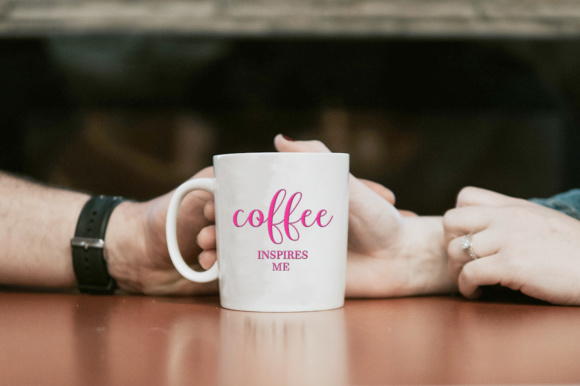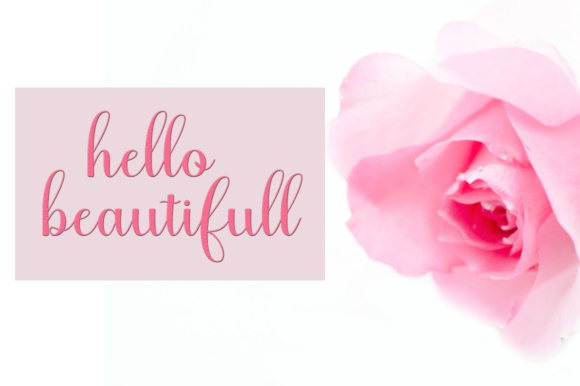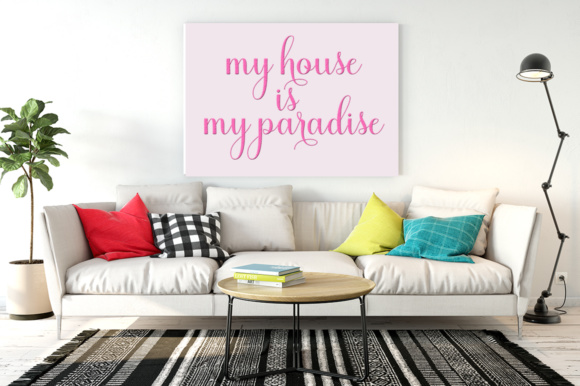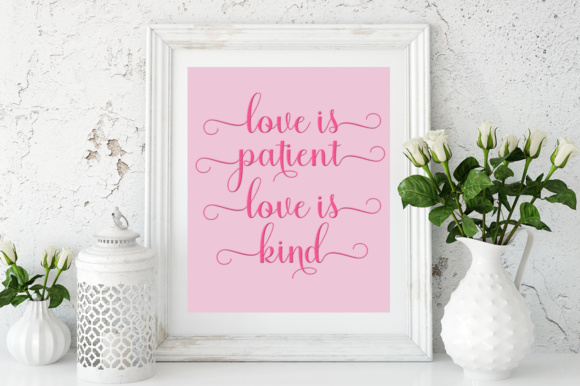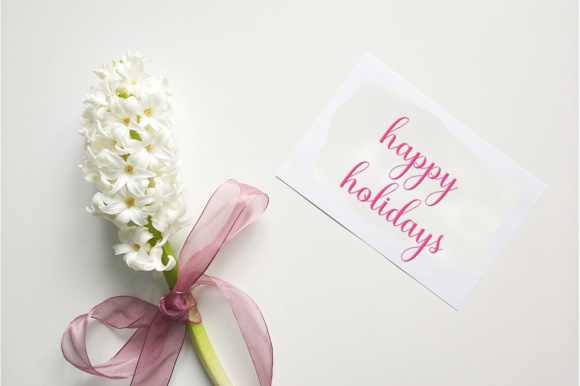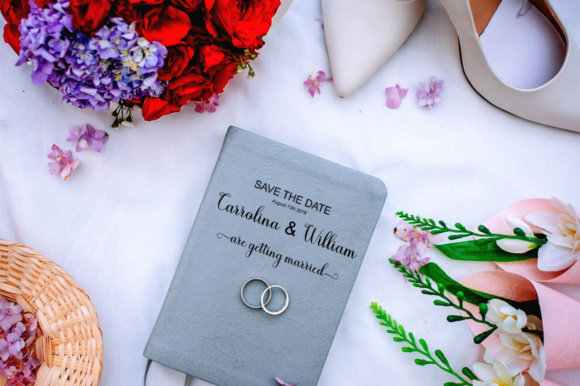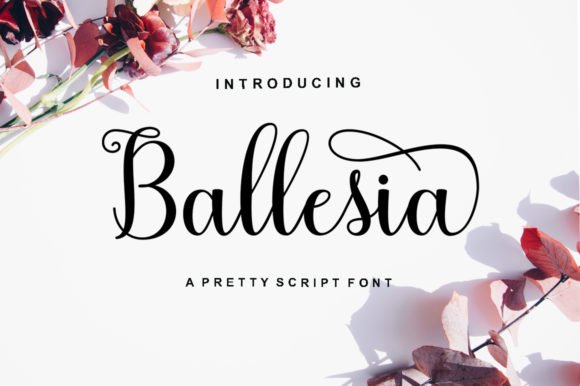
Have you ever been working on a design project and suddenly, the perfect font pops into your head? Maybe it’s the perfect script font that makes your logo or branding stand out from the crowd. For many designers, that moment is when the magic happens, and the design starts to come alive. That’s exactly what we’re going to talk about in this article: the beautiful and versatile Ballesia Script Font.
This lovely script font is perfect for designers who want to add a touch of elegance and sophistication to their projects. With its casual, dynamic feel and dancing baseline, Ballesia Script Font is easy to use and can be applied to a wide range of designs, from branding and logos to greeting cards and wedding stationery.
Whether you’re a seasoned designer or just starting out, Ballesia Script Font is a valuable addition to your toolkit. Its versatility and ease of use make it an ideal choice for designers who want to create beautiful and effective designs with minimal effort.
Ballesia Script Font Key Features
- Font Family: Ballesia Script
- Unique Characteristics: Handwritten, cursive script font with elegant and sophisticated feel; ideal for creative, artistic, and design-related projects
- Font Style: Script, cursive, handwritten
Ballesia Script Font Review
Overall, I have mixed feelings about Ballesia Script Font. On one hand, there are some things that work well ✨.
- Unique and elegant look: Ballesia Script Font has a distinctive, hand-crafted feel that can add a touch of sophistication to any design project.
- Good for creative projects: The font’s cursive style makes it suitable for creative projects such as invitations, wedding stationery, and other decorative pieces.
- Available in various weights: Ballesia Script Font comes in multiple weights, which can be useful for creating visual hierarchies in your designs.
On the other hand, there are some limitations ⚠️:
- Limited legibility: The font’s cursive style can make it difficult to read, especially at smaller font sizes.
- No language support: Ballesia Script Font seems to be designed primarily for Latin-based languages, which may limit its use for projects requiring non-Latin scripts.
- May not be suitable for body text: Due to its decorative nature, Ballesia Script Font may not be the best choice for body text or long blocks of text.
Overall, Ballesia Script Font is a beautiful and elegant font that can add a touch of creativity to your designs. However, its limitations may make it less suitable for certain projects or applications.
Tips for Getting the Most Out of Ballesia Script Font
For optimal results, use Ballesia Script Font for titles, headings, and quotes. It pairs well with sans-serif fonts for body text. Experiment with font sizes and styles to achieve the desired aesthetic.
Ballesia Script Font is ideal for:
– Quotes and inspirational graphics
– Luxury product packaging and labels
Alternatives to Ballesia Script Font for Designers
Carolyna Pro is a luxurious script font that exudes elegance and sophistication. It’s perfect for high-end branding, luxury packaging, and fine art. This font has a more refined and detailed look compared to Ballesia Script Font, making it ideal for designers who want to create a premium and exclusive feel.
Comparison to Ballesia Script Font: Carolyna Pro has a more intricate and ornate design, whereas Ballesia Script Font is more minimalist and modern. Carolyna Pro is better suited for formal and high-end designs, while Ballesia Script Font is more versatile and can be used for a variety of projects.
Great Vibes is a modern script font that’s perfect for creative and playful projects. It’s great for branding, advertising, and social media graphics. This font has a more relaxed and casual look compared to Ballesia Script Font, making it ideal for designers who want to create a fun and approachable vibe.